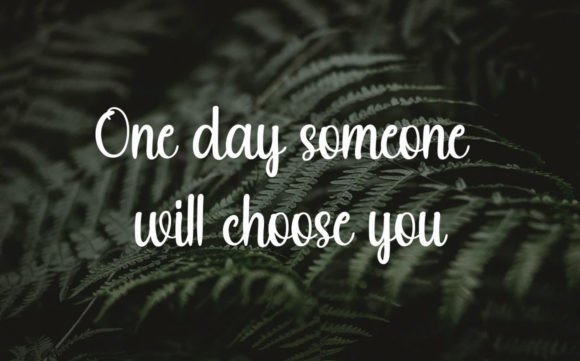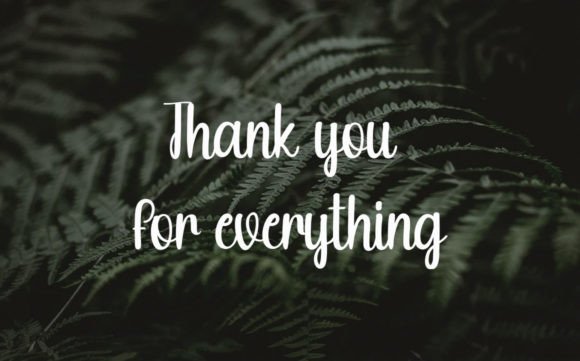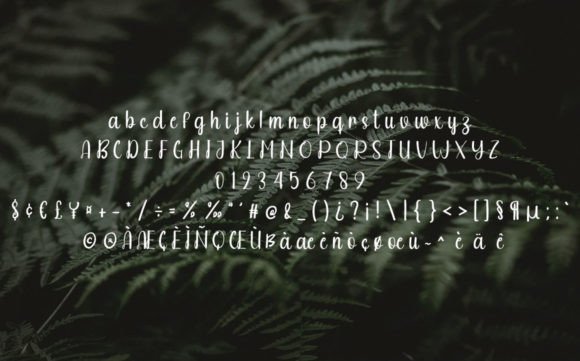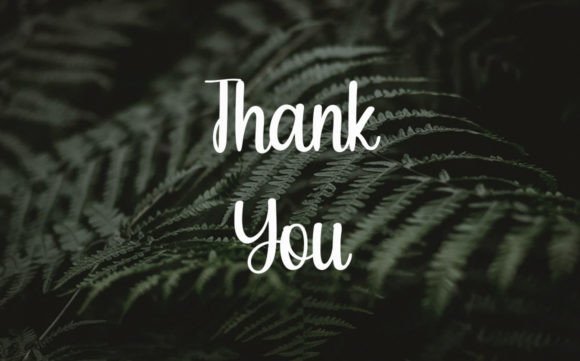
Someday Font
About Someday Font
“Someday” is an enchanting handwritten font that adds a touch of romance and charm to your design projects. This versatile font can be used in a wide spectrum of applications, from greeting cards to headlines, and it is guaranteed to infuse a romantic feel into your next project.
The defining characteristics of “Someday” include its enchanting and romantic nature. Its handwritten style imparts a sense of warmth and authenticity, making it an ideal choice for projects that aim to convey a heartfelt and romantic sentiment.
Picture using “Someday” to create captivating greeting cards that convey love and affection. Visualize incorporating this font into headlines and titles, especially for projects that require a romantic and enchanting atmosphere. “Someday” can also be a valuable asset for crafting wedding invitations, love letters, or any creative endeavor that seeks to evoke a sense of romance and charm.
In conclusion, “Someday” is more than just a font; it’s a design resource that infuses enchantment and romance into your creative work. Its handwritten style makes it versatile for various design applications where a romantic and heartfelt tone is needed. Embrace “Someday” as a font that enhances your designs and adds a touch of magic and romance to your projects, creating an enchanting atmosphere that captures the heart.